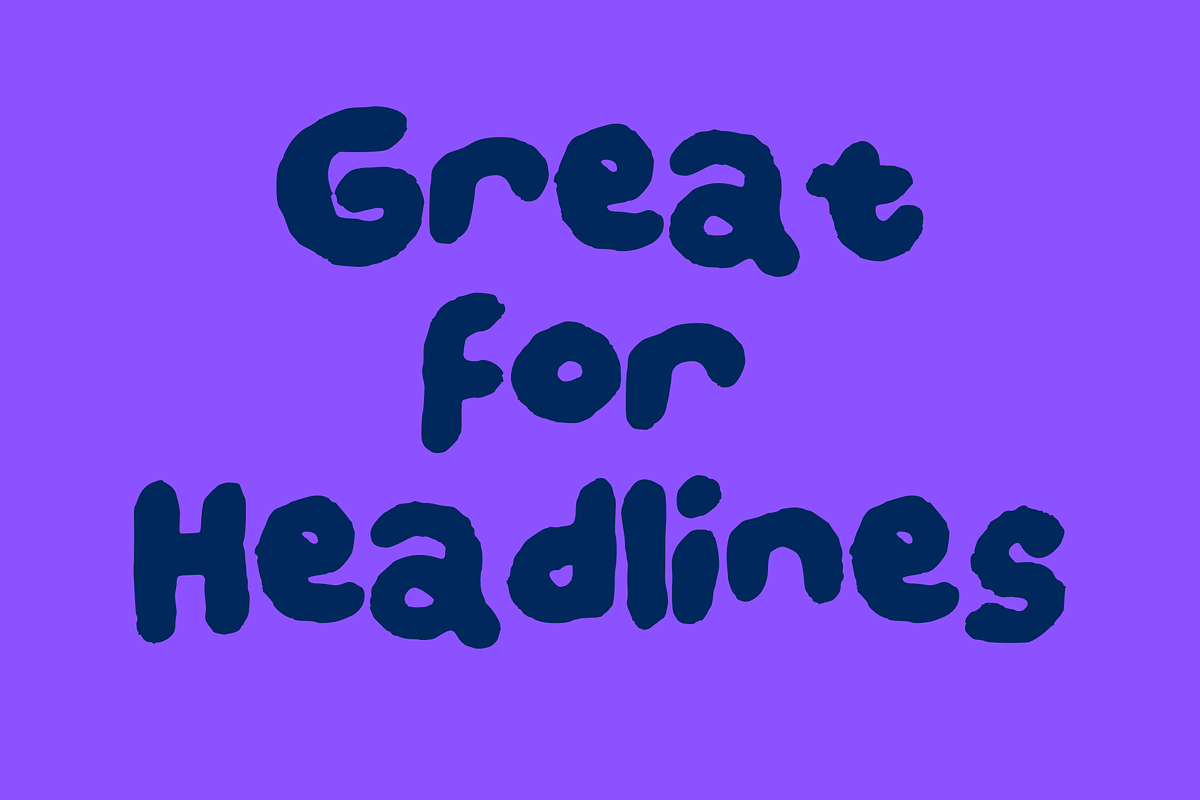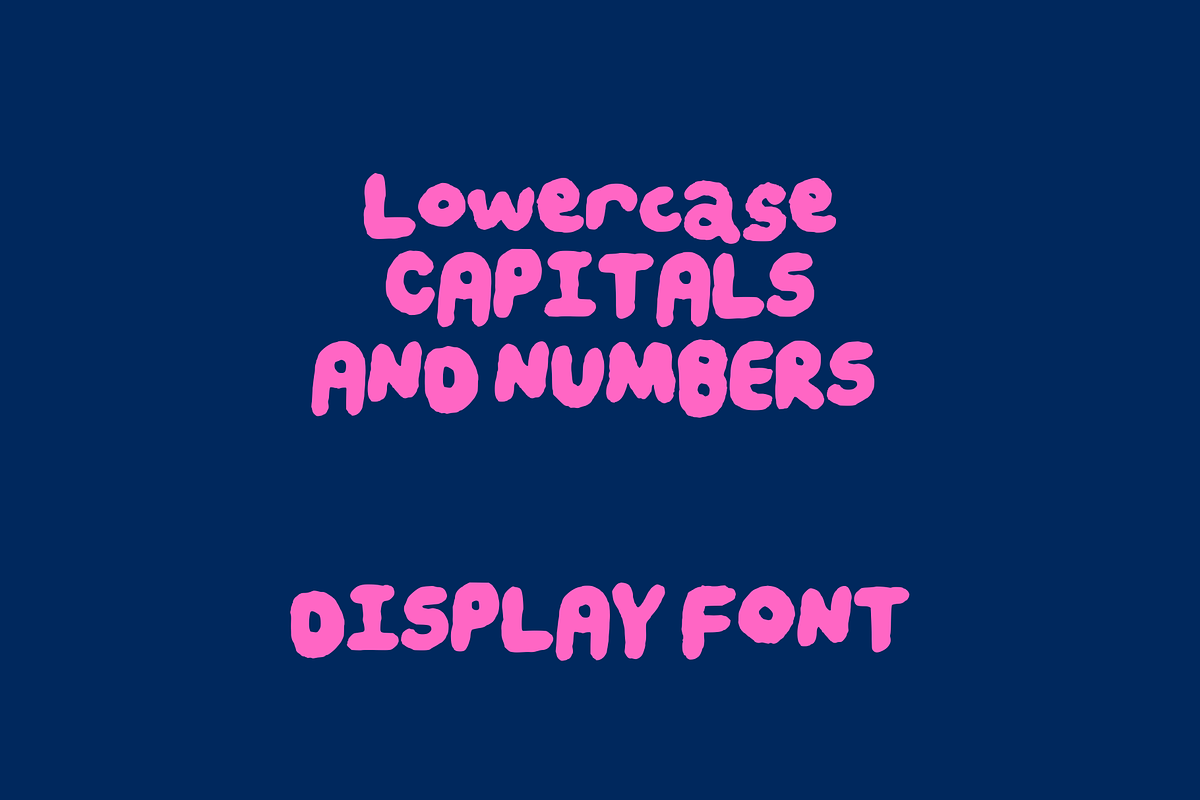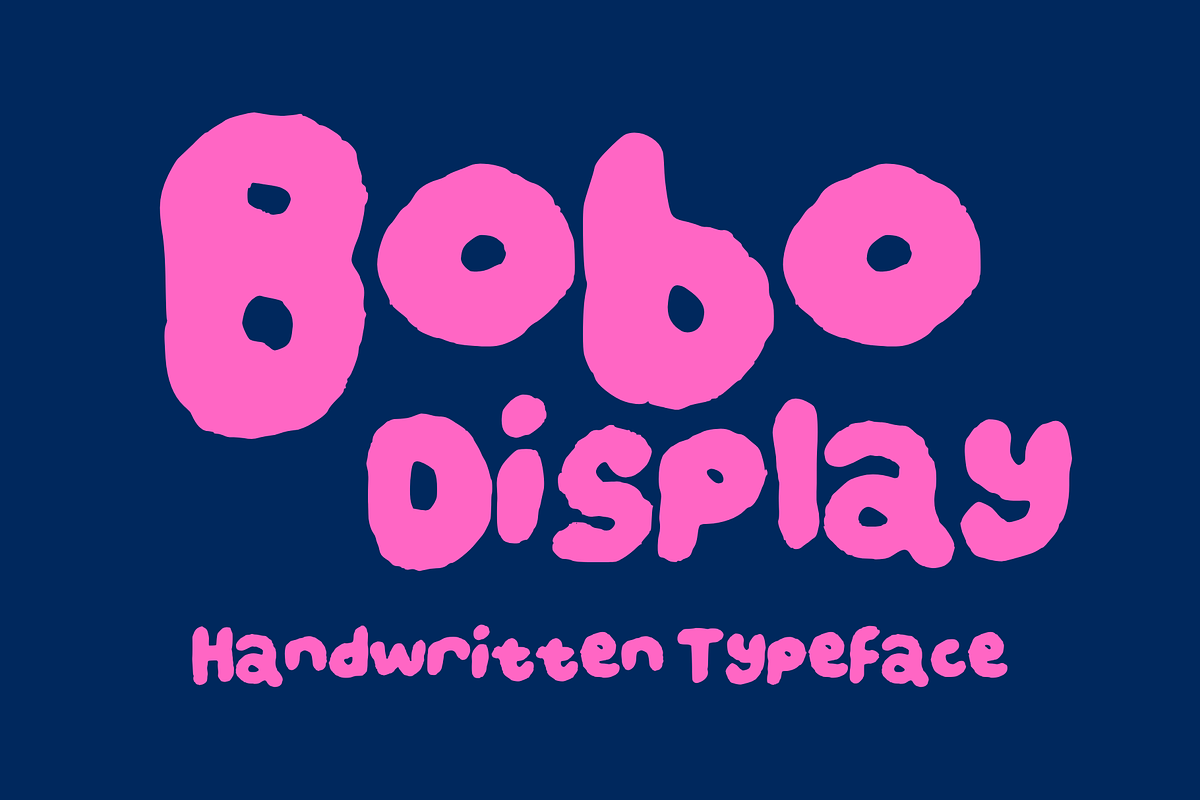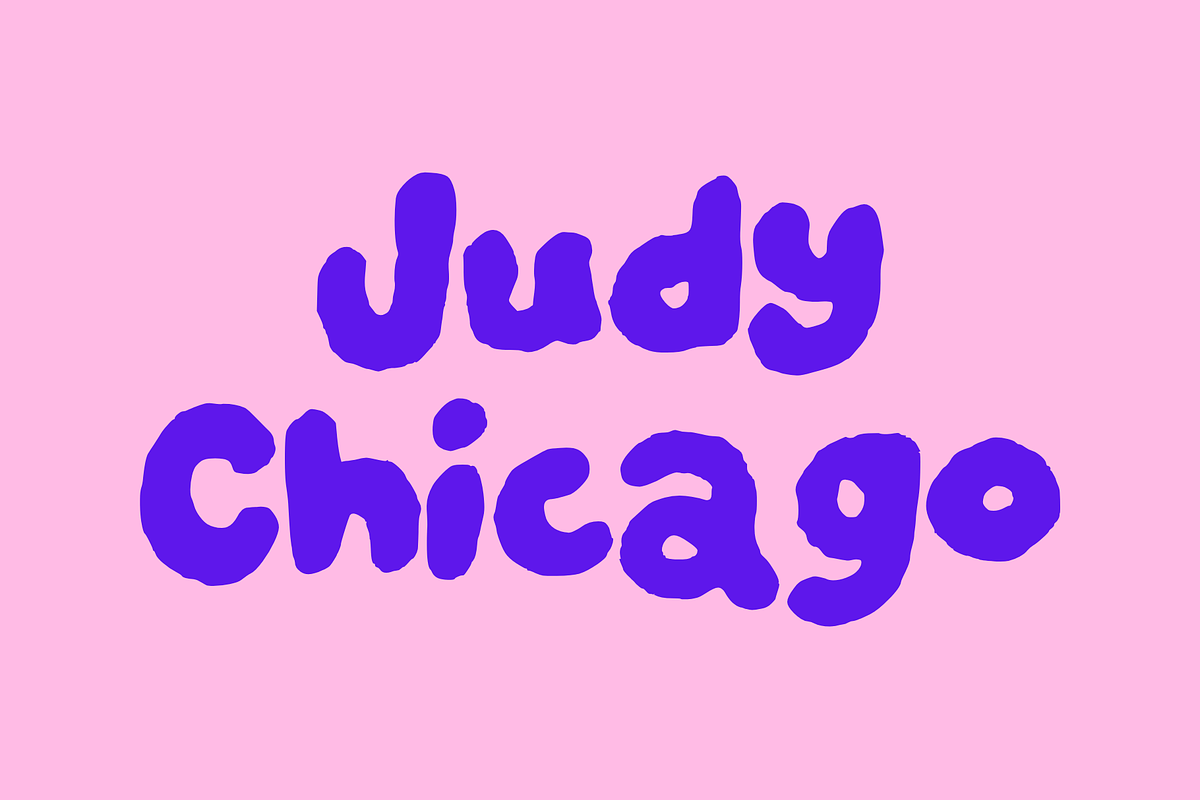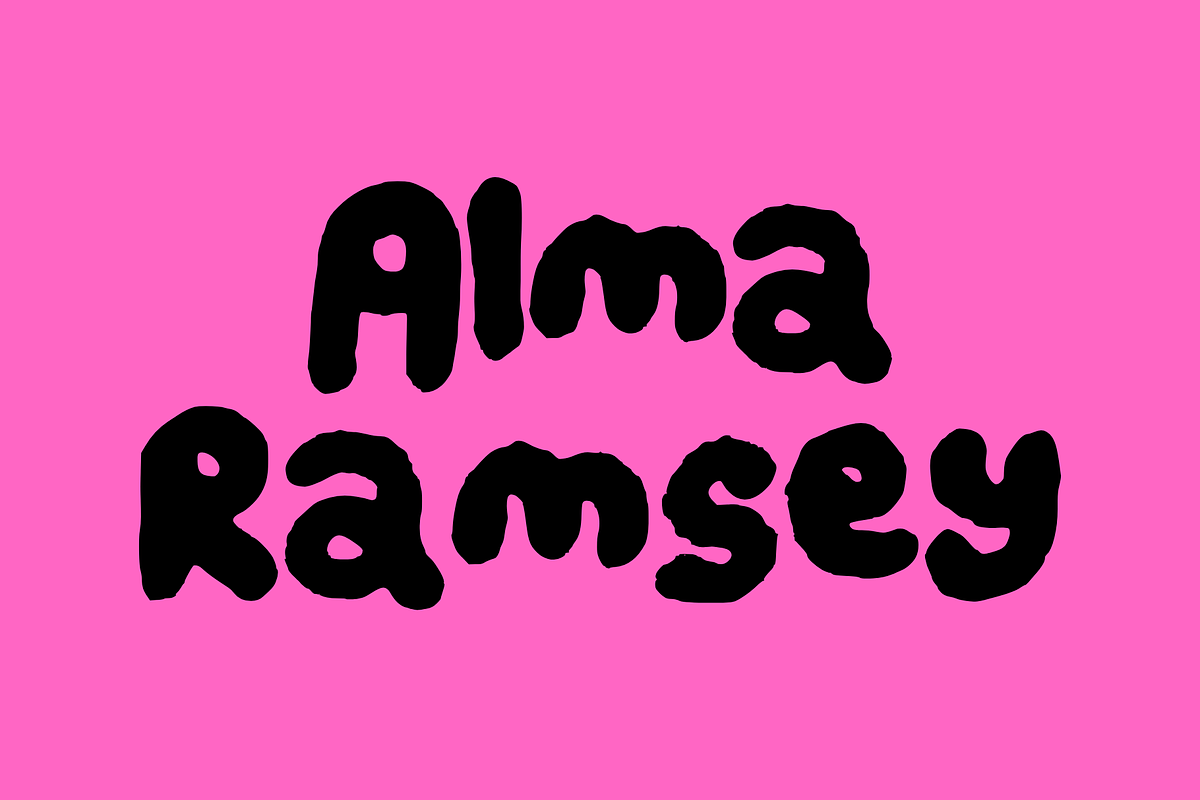
Bobo - For Kids, Brands + Packaging
Fun. Friendly. Completely impossible to ignore.
Bobo is a bubbly handwritten font that brings instant joy to any project it touches. With its rounded, playful forms and high energy, it's perfectly suited to children's brands, toy packaging, lifestyle products, and any design that needs to feel approachable, warm, and full of personality.
- Children's brands, books & packaging
- Toy & game branding
- Birthday & party stationery
- Food & snack packaging for families
- Lifestyle & wellness brands
- Social media content & YouTube thumbnails
- Full uppercase & lowercase character set
Because sometimes a project just needs to smile.